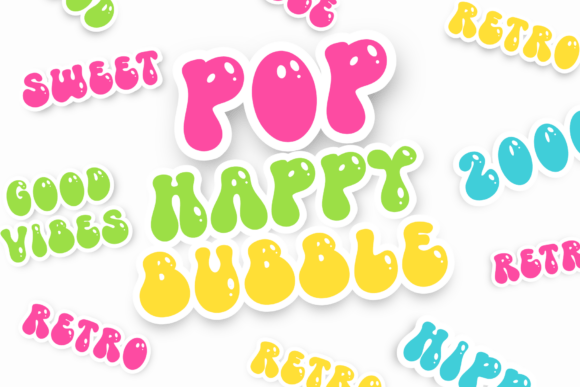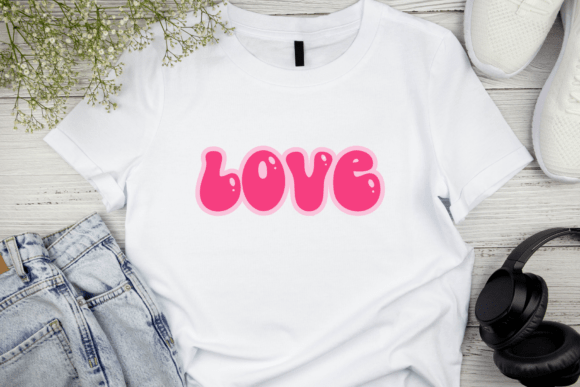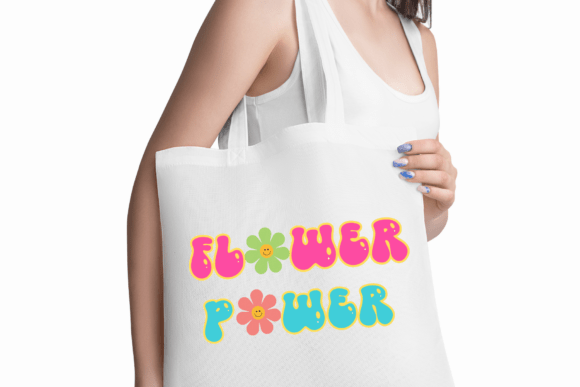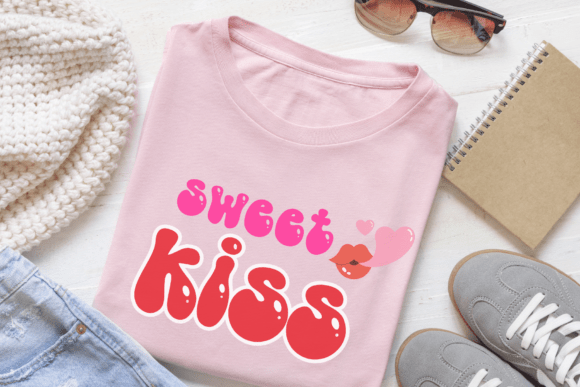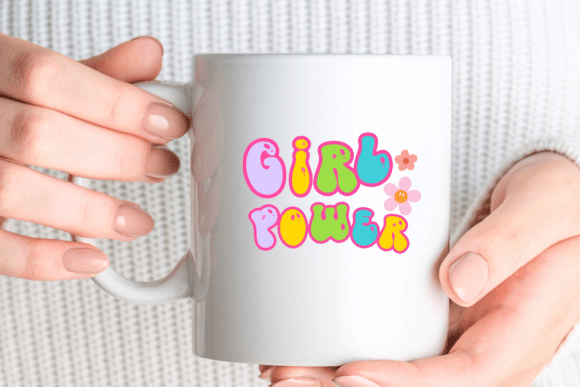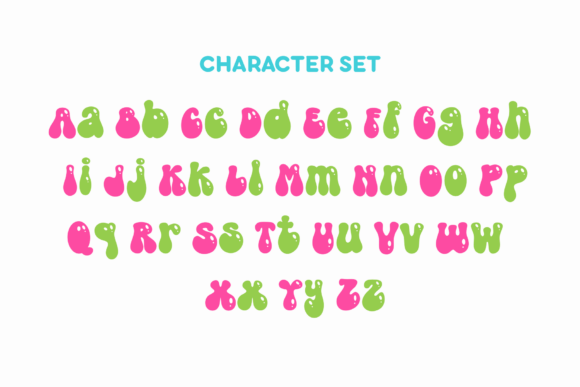
Bubble Pop Retro Font: Revive the Fun and Playfulness of Y2K Aesthetic
Are you ready to add a dash of nostalgia and fun to your designs? Look no further than the Bubble Pop Retro Font! This playful and trendy display font is inspired by the vibrant Y2K aesthetic and retro pop culture, making it perfect for designers and crafters who want to bring a touch of the past to their creative projects.
What is Bubble Pop Retro Font?
Bubble Pop Retro Font is a unique and eye-catching typeface that features soft, rounded shapes and shiny highlights, giving it a glossy, 3D bubble effect. This font is designed to make your designs pop (pun intended!) and add a fun, bouncy, and energetic vibe to any creative project. Whether you’re working on stickers, streetwear, social media graphics, or Y2K-themed posters, this font is sure to bring a smile to your audience’s faces.
Inspiration from Y2K Aesthetic and Retro Pop Culture
The Bubble Pop Retro Font is deeply rooted in the Y2K aesthetic and retro pop culture of the late 1990s and early 2000s. This era was characterized by bright colors, bold patterns, and a sense of playfulness and experimentation. The font’s design captures the essence of this era, with its rounded shapes, shiny highlights, and bouncy feel. Whether you’re a fan of old-school video games, cassette tapes, or flip phones, this font is sure to bring back memories and evoke a sense of nostalgia.
The Bubble Pop Retro Font is optimized for use with cutting machines like Cricut and Silhouette, making it a great choice for crafters and designers who want to create custom stickers, iron-on designs, and other DIY projects. The font’s playful and trendy vibe also makes it perfect for social media graphics, posters, and other digital designs. Whether you’re a professional designer or a hobbyist crafter, this font is sure to inspire your creativity and bring a touch of fun to your projects.
Key Features of Bubble Pop Retro Font
- Playful and trendy display font with a glossy, 3D bubble effect
- Inspired by the vibrant Y2K aesthetic and retro pop culture
- Soft, rounded shapes and shiny highlights for a fun and bouncy feel
- Perfect for stickers, streetwear, social media graphics, and Y2K-themed posters
How to Use Bubble Pop Retro Font in Your Designs
Using the Bubble Pop Retro Font in your designs is easy! Here are a few ideas to get you started:
- Create custom stickers and decals for laptops, water bottles, and other surfaces
- Design eye-catching social media graphics and posters for Y2K-themed events and promotions
- Add a touch of nostalgia to your streetwear designs with custom t-shirt and hoodie graphics
- Use the font to create fun and playful DIY projects, such as party decorations and gift tags